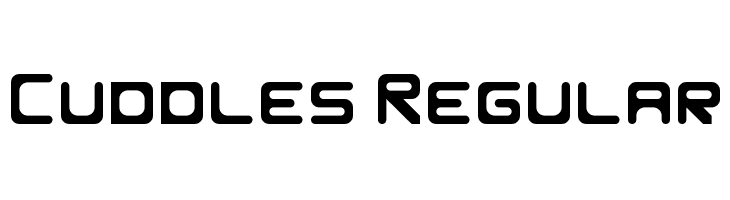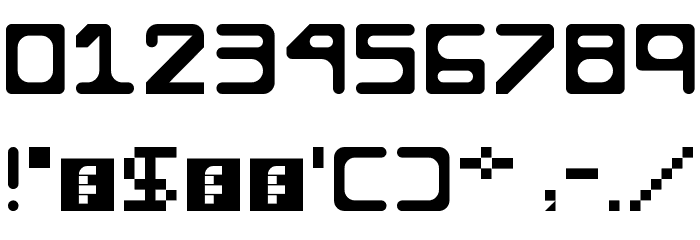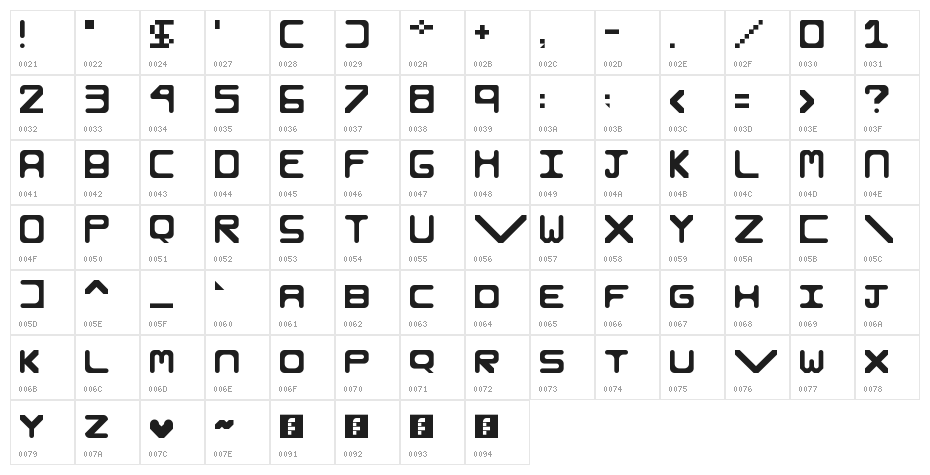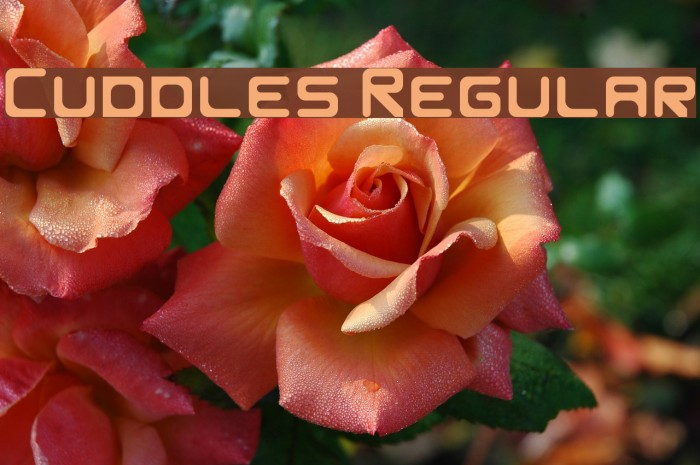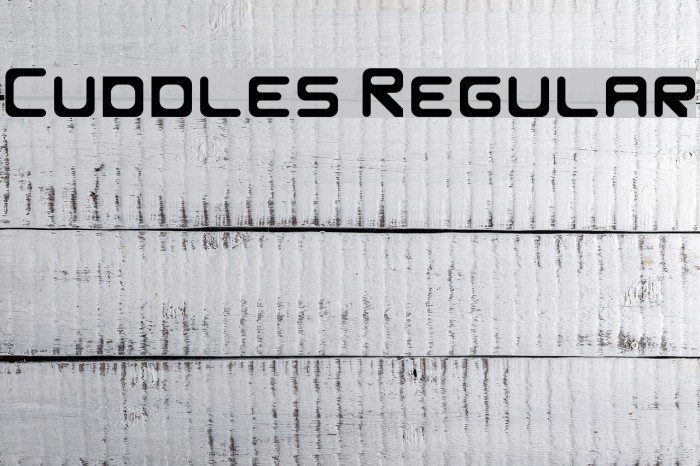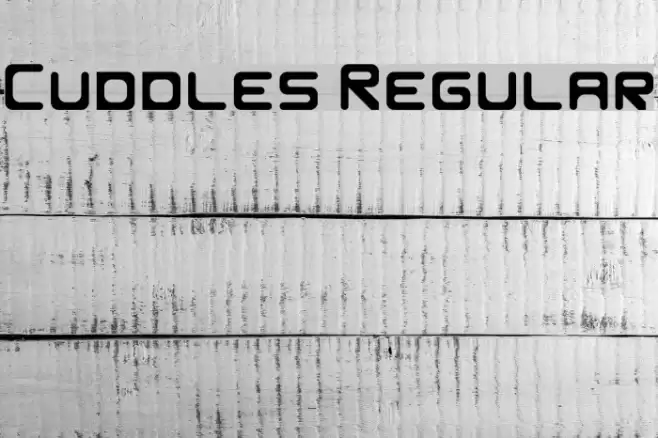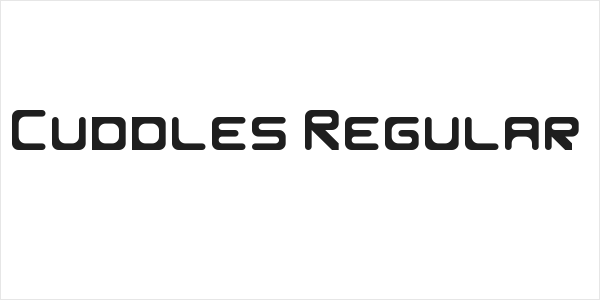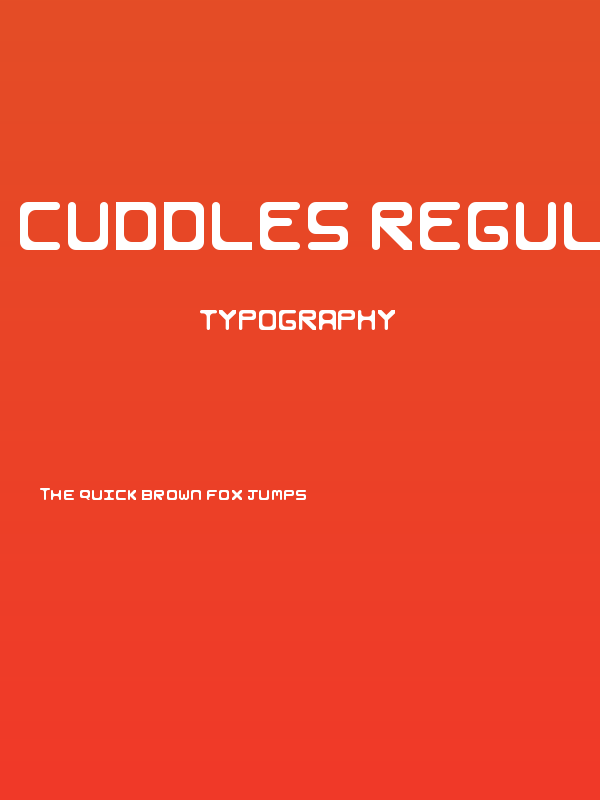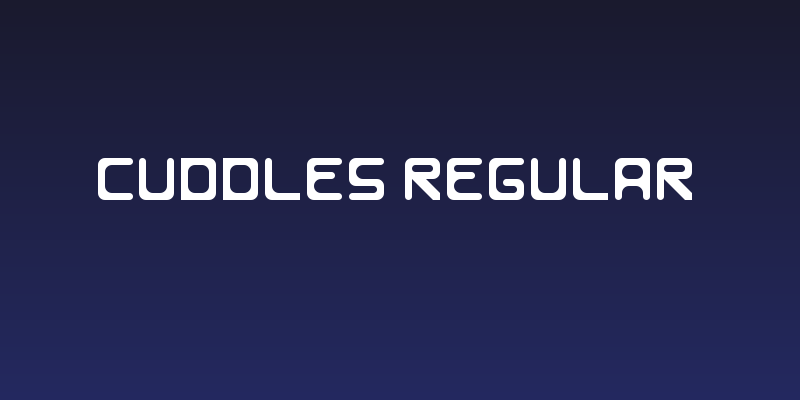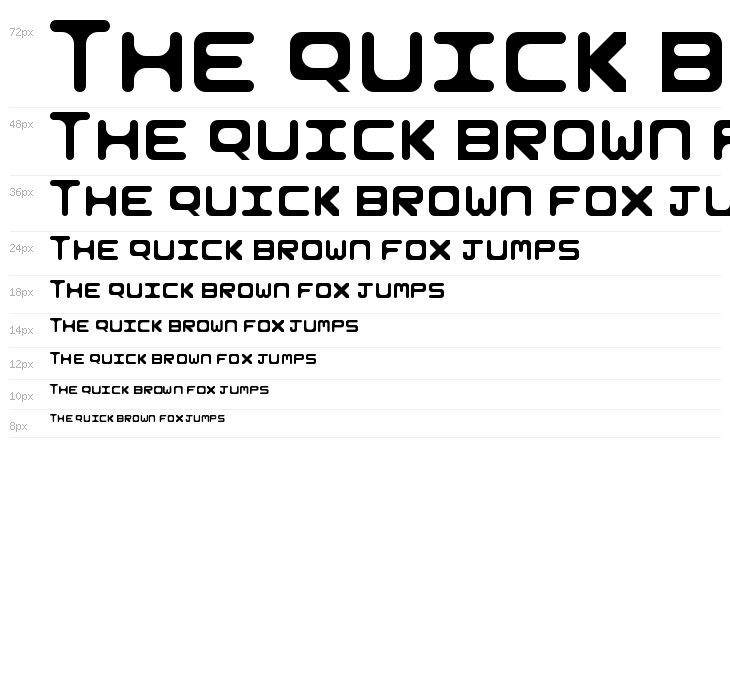
Cuddles Regular Font
Cuddles Regular Description
This font features a modern, geometric style with rounded edges, giving it a friendly and approachable appearance. The characters are bold and uniform, with a consistent stroke width that provides a clean and structured look. The uppercase and lowercase letters maintain a similar height, contributing to a cohesive visual flow. The numerals and special characters are designed to match the overall aesthetic, ensuring versatility across various applications. The font's simplicity and clarity make it suitable for a wide range of design projects, from digital interfaces to print media.
| Use Case | Headlines, Logos, Digital Interfaces |
| Proposed Projects | Ideal for digital interfaces, branding, signage, and print media where a clean and friendly appearance is desired. |